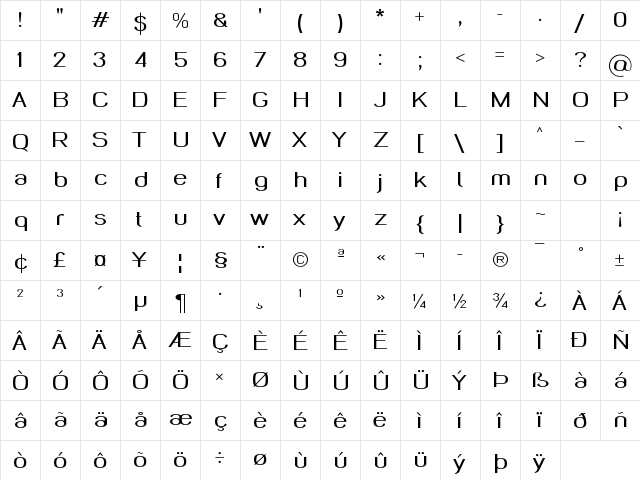
Barca Regular
Design Context for Barca Typeface
Barca offers clean, dependable letterforms without strong stylistic allegiance, making it a practical choice for designers who need flexibility.
Pro Tip: Use Barca in both headline and body roles to test its range before committing to a single application.